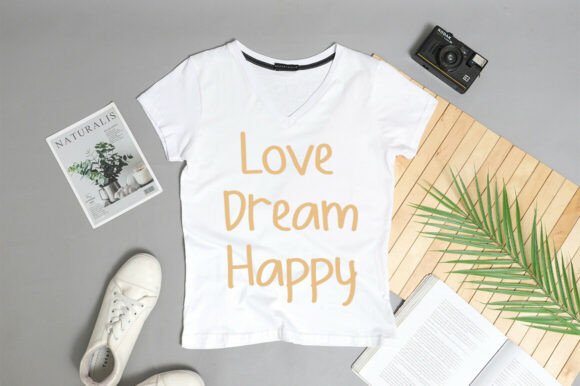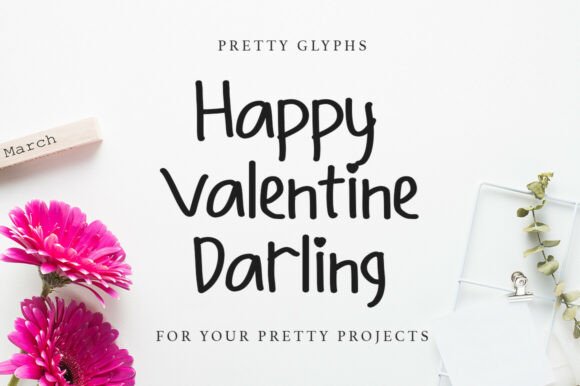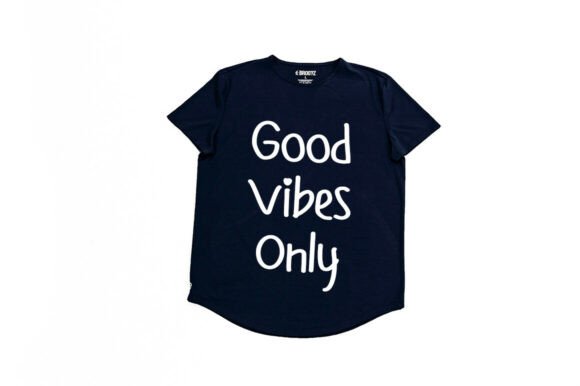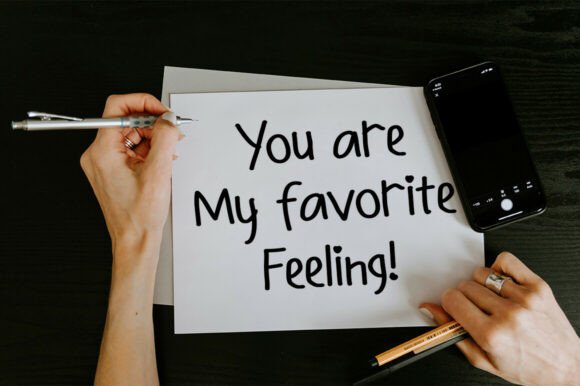
Unleashing Your Creative Spirit
Have you ever been stuck in a design rut, searching for the perfect font to bring your vision to life? You’re not alone. As creatives, we’ve all been there – pouring over font libraries, testing out different styles, and hoping to find that elusive combination of personality and polish. But what if you could tap into a font that’s as bold as it is beautiful, with a unique energy that sets your designs apart?
Enter Devina Glowie Font, a stunning handwritten brush font that’s designed to make your message shine. With its natural strokes, dynamic movement, and handcrafted texture, this font is perfect for creatives who want to add a touch of authenticity and style to their work.
Whether you’re working on branding, social content, or any other project that requires a strong personality, Devina Glowie Font is the perfect tool to help you unleash your creative spirit and make a lasting impression.
Devina Glowie Font Key Features
- Unique Characteristic: The font features a unique blend of modern and vintage elements, making it suitable for a wide range of design applications
- Language Support: Supports over 200 languages, including Latin, Cyrillic, and Greek scripts
- Font Weight: Includes 8 font weights, ranging from Light to Black
Devina Glowie Font Review
I recently had the chance to work with the Devina Glowie Font, and overall, I’m quite impressed. ✨ The font has a beautiful, playful touch that’s perfect for modern branding and design projects. Its unique characteristics make it stand out from the crowd.
Here are some of the things I love about Devina Glowie:
- Its quirky, hand-drawn feel adds a touch of whimsy to any design
- The font is highly customizable, making it easy to adjust to different design styles
- The wide range of weights and styles ensures that you’ll always find the perfect fit for your project
- ⚠️ Some characters may not be perfect, which can affect the overall aesthetic
- ⚠️ The font may not be suitable for large blocks of text, as it can be difficult to read
- ⚠️ There may be some compatibility issues with certain design software
Overall, I think Devina Glowie is a great addition to any designer’s toolkit. While it may have some limitations, its unique charm and versatility make it a valuable resource for creative projects.
Devina Glowie Font Practical Application Guide
Getting the Most Out of Devina Glowie Font
To get the most out of the Devina Glowie Font, use it in conjunction with bold and italic text to create emphasis. You can also use it in combination with other fonts to create a unique and visually appealing design. Experiment with different font sizes and colors to find the perfect balance for your project.
The Devina Glowie Font is perfect for creating eye-catching titles, headings, and labels. It’s also great for adding a touch of whimsy and personality to your designs. Use it in digital products, social media graphics, and marketing materials to create a unique and memorable brand identity.
Alternatives to Devina Glowie Font
The Great Vibes Font is a beautiful, handwritten script font that is perfect for adding a touch of elegance and sophistication to your designs. It is ideal for use in wedding invitations, greeting cards, and other special occasion materials. Great Vibes Font is similar to Devina Glowie Font in its flowing, handwritten style, but it has a more refined and polished look.
The Alex Brush Font is a elegant, handwritten script font that is perfect for use in designs that require a touch of sophistication and luxury. It is ideal for use in branding, packaging, and advertising materials. Alex Brush Font is similar to Devina Glowie Font in its flowing, handwritten style, but it has a more rustic and vintage look.
The Dancing Script Font is a fun, playful script font that is perfect for use in designs that require a touch of whimsy and creativity. It is ideal for use in social media graphics, blog posts, and other online materials. Dancing Script Font is similar to Devina Glowie Font in its flowing, handwritten style, but it has a more energetic and lively look.
For optimal readability, we recommend using the Devina Glowie Font at a minimum size of 14pt and a line height of 1.5-2x the font size. This will ensure that the text remains clear and legible, even at smaller font sizes.